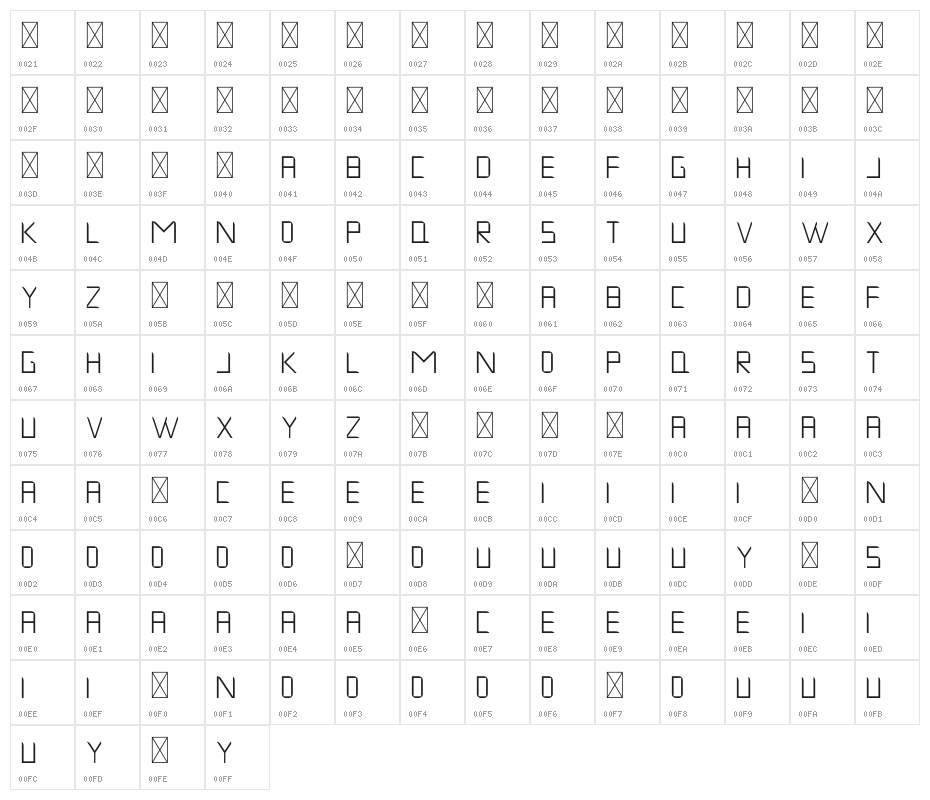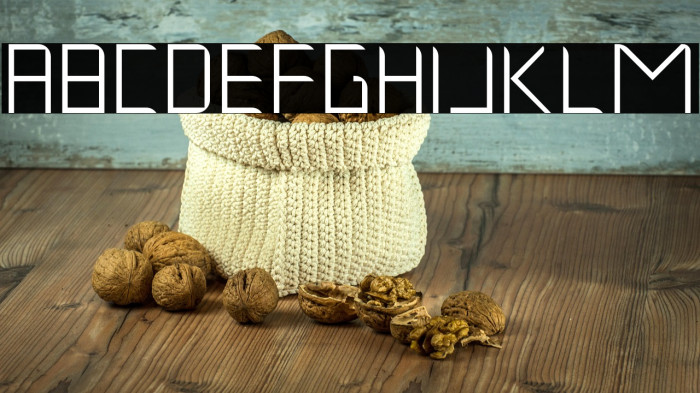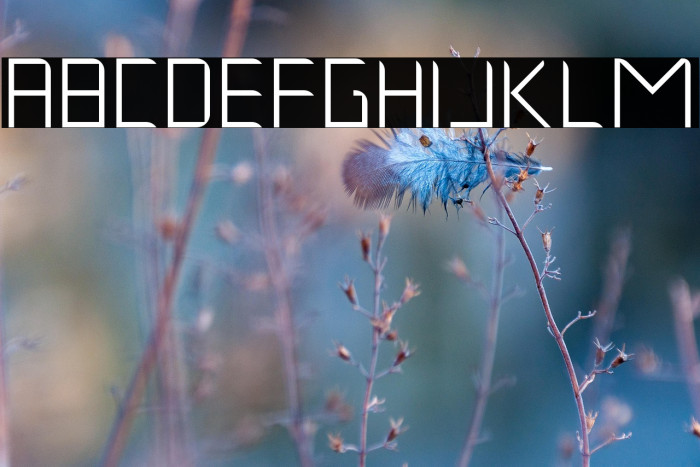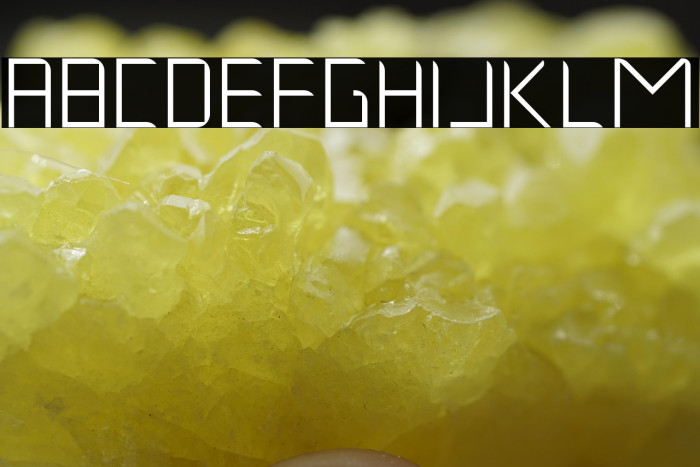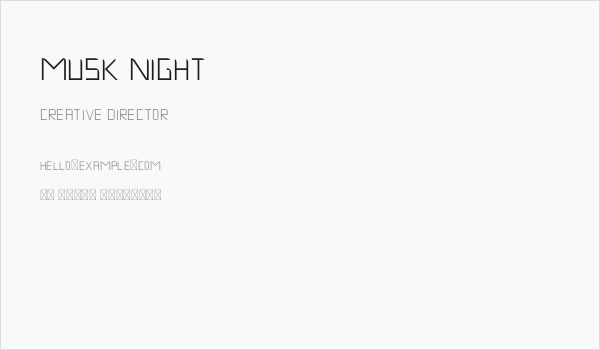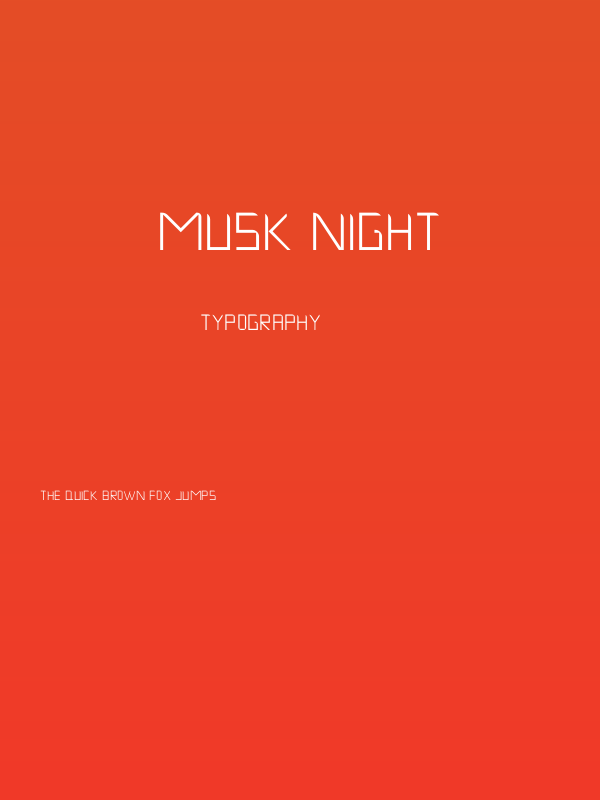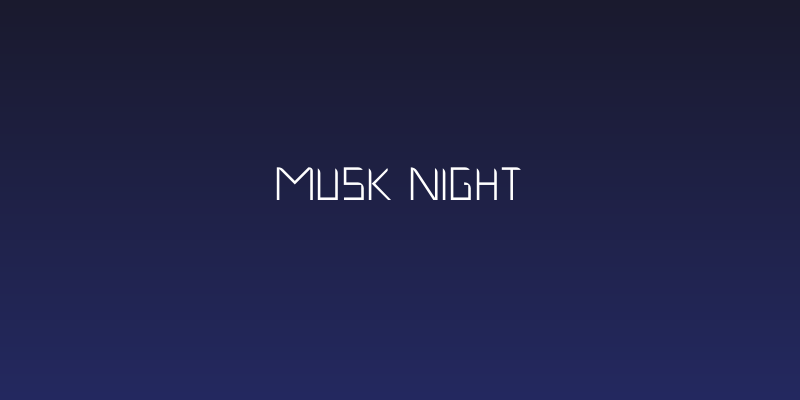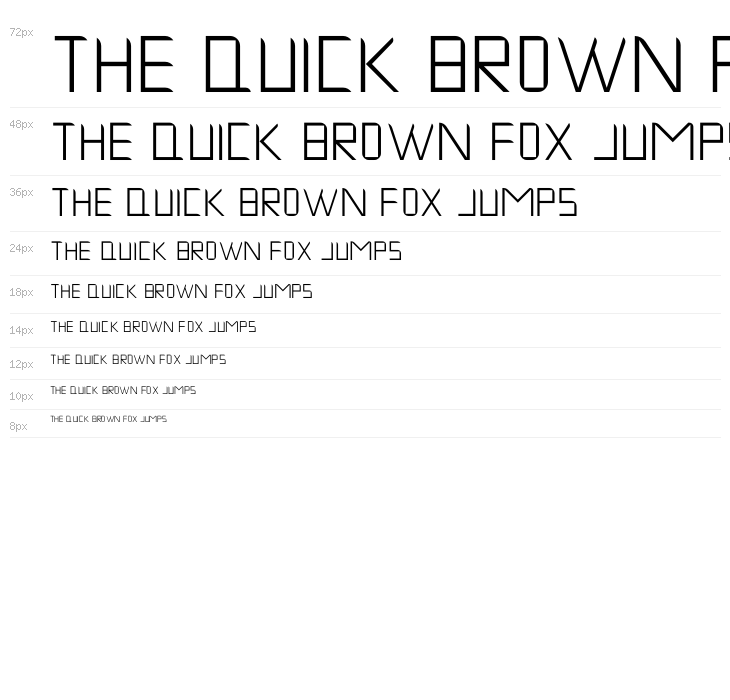
Musk Night Font
Musk Night Description
This font features a geometric and futuristic design, characterized by its angular and sharp edges. The uppercase letters are uniform in height, with a consistent stroke width that gives a clean and modern appearance. The absence of curves and the use of straight lines create a sense of precision and technicality. The font's structure is reminiscent of digital or sci-fi themes, making it suitable for projects that require a contemporary and edgy look. The characters are evenly spaced, ensuring readability while maintaining a distinctive style.